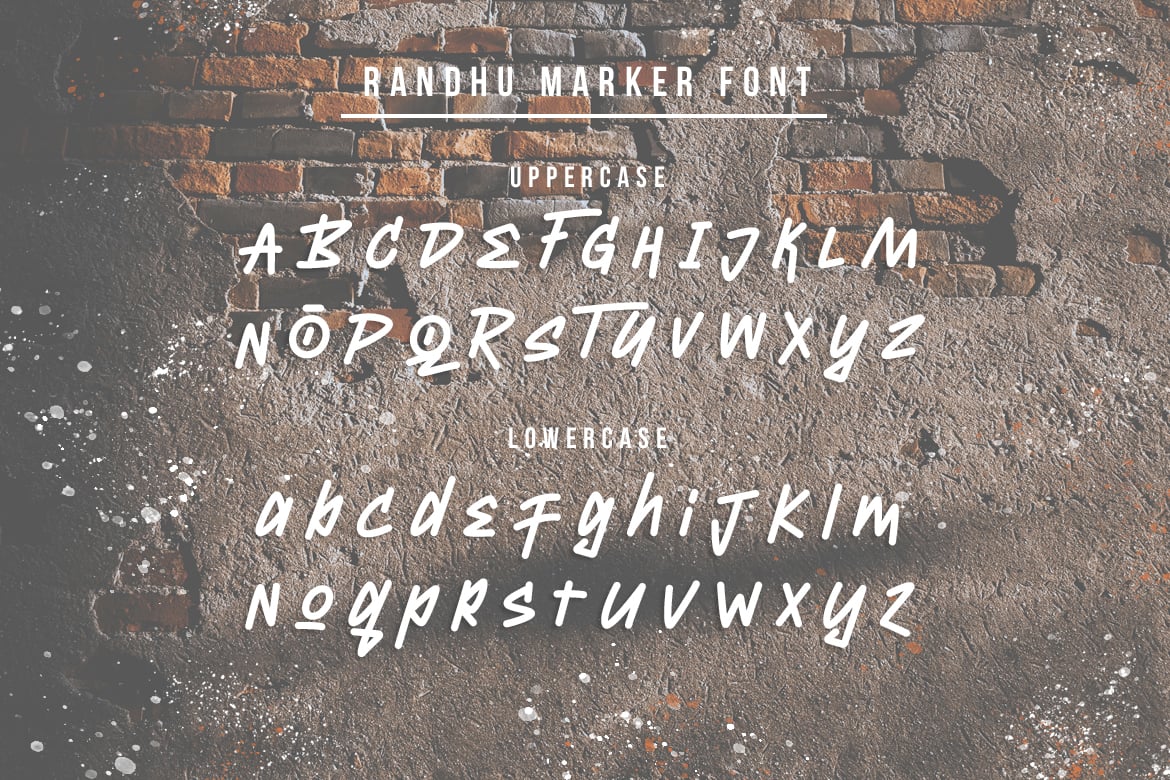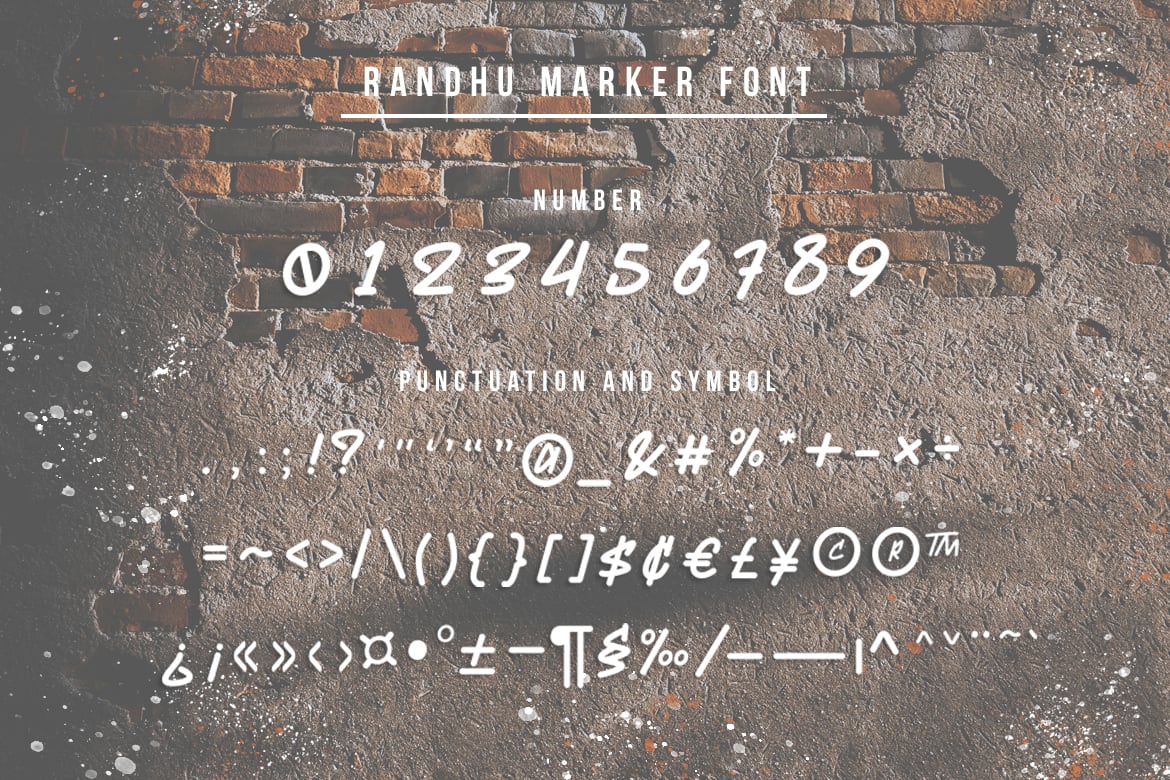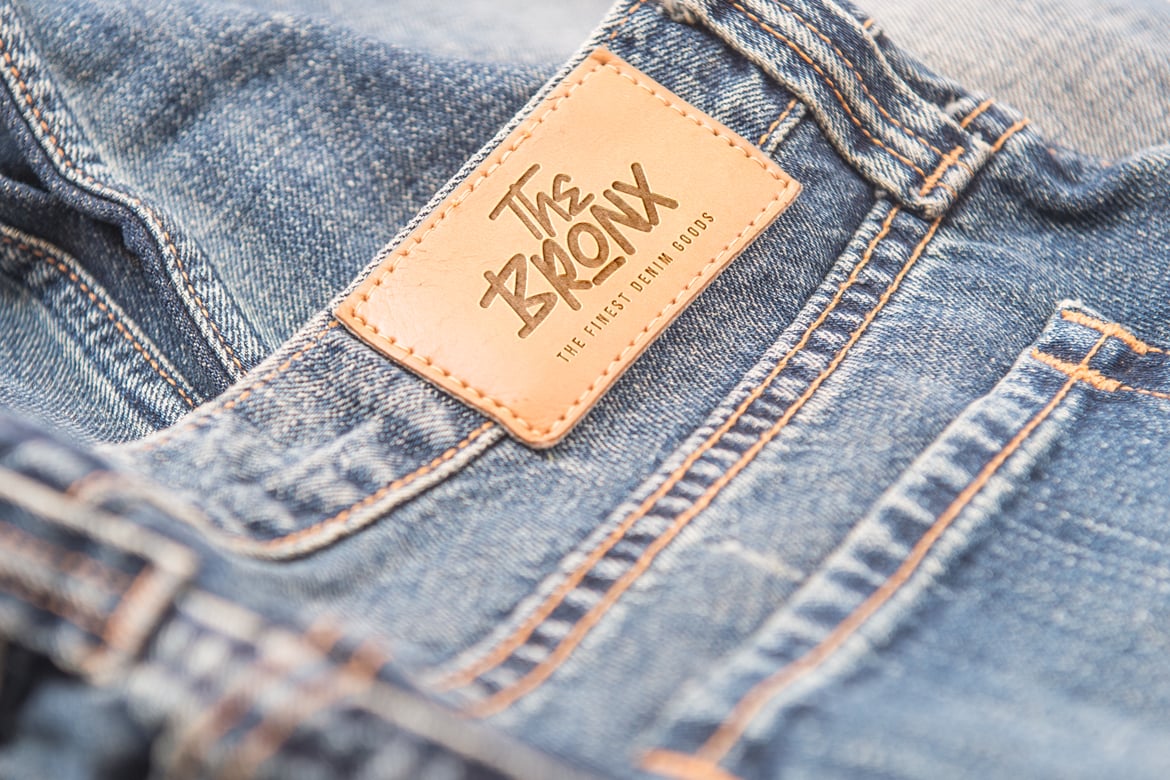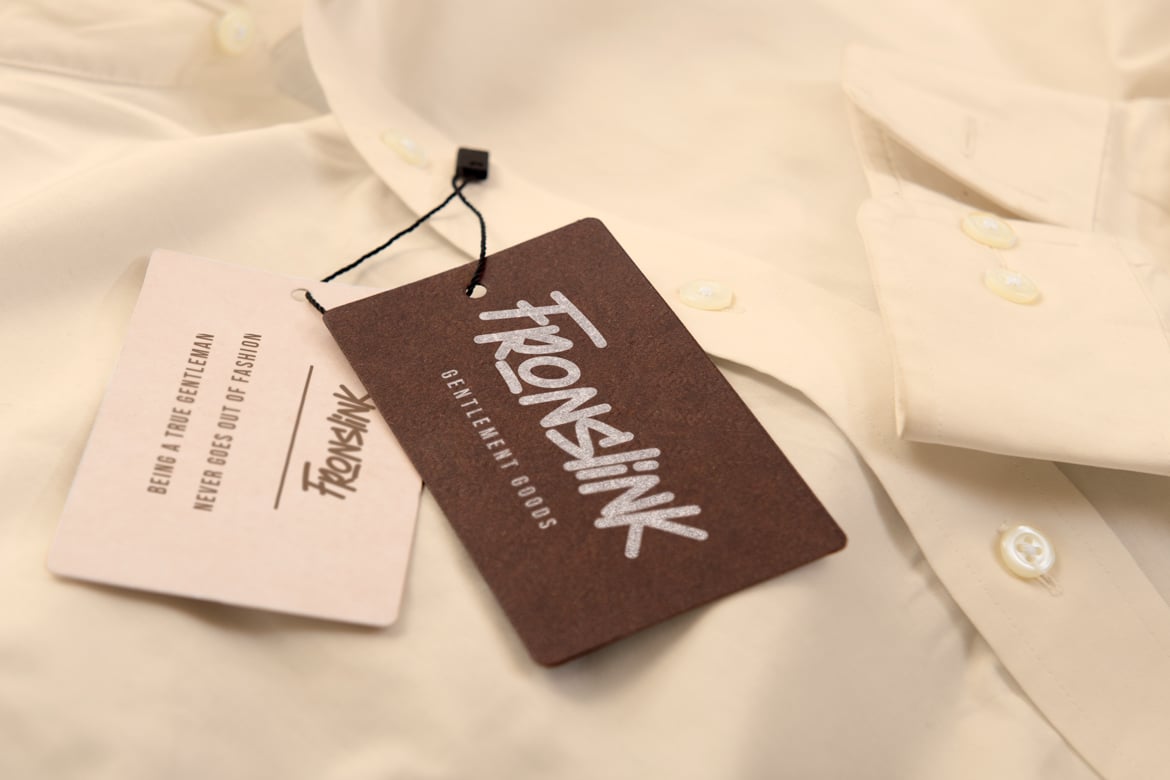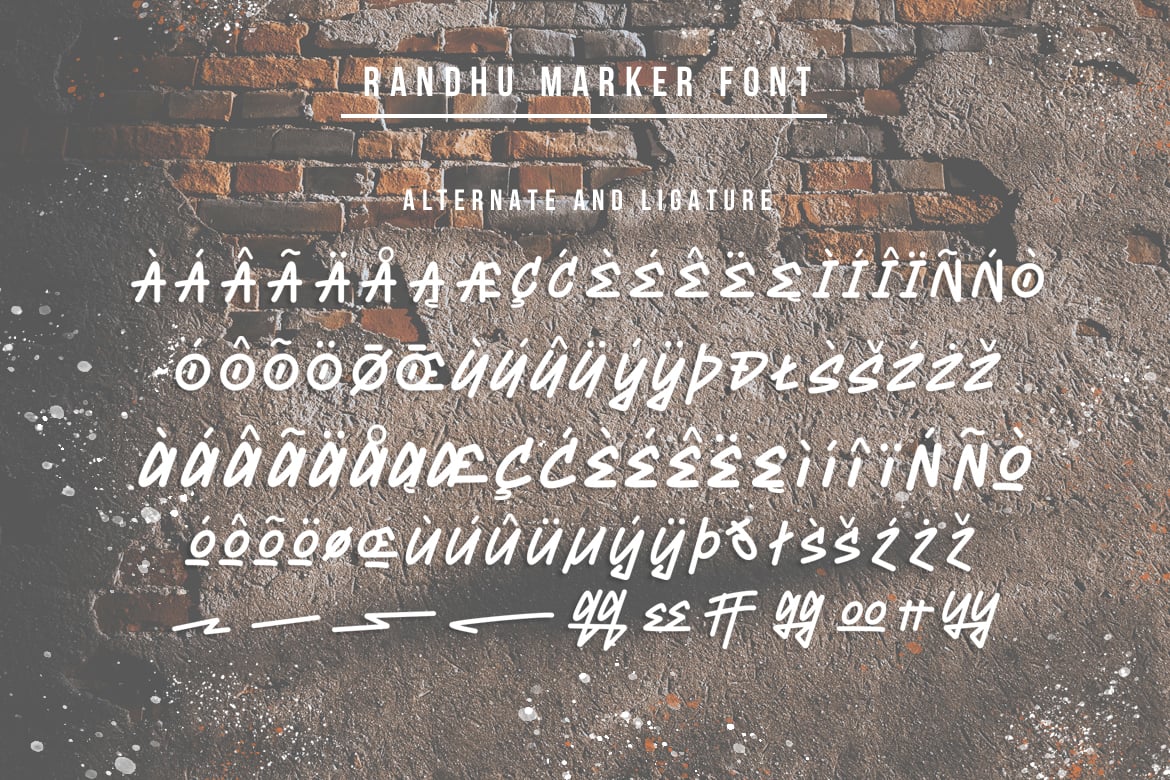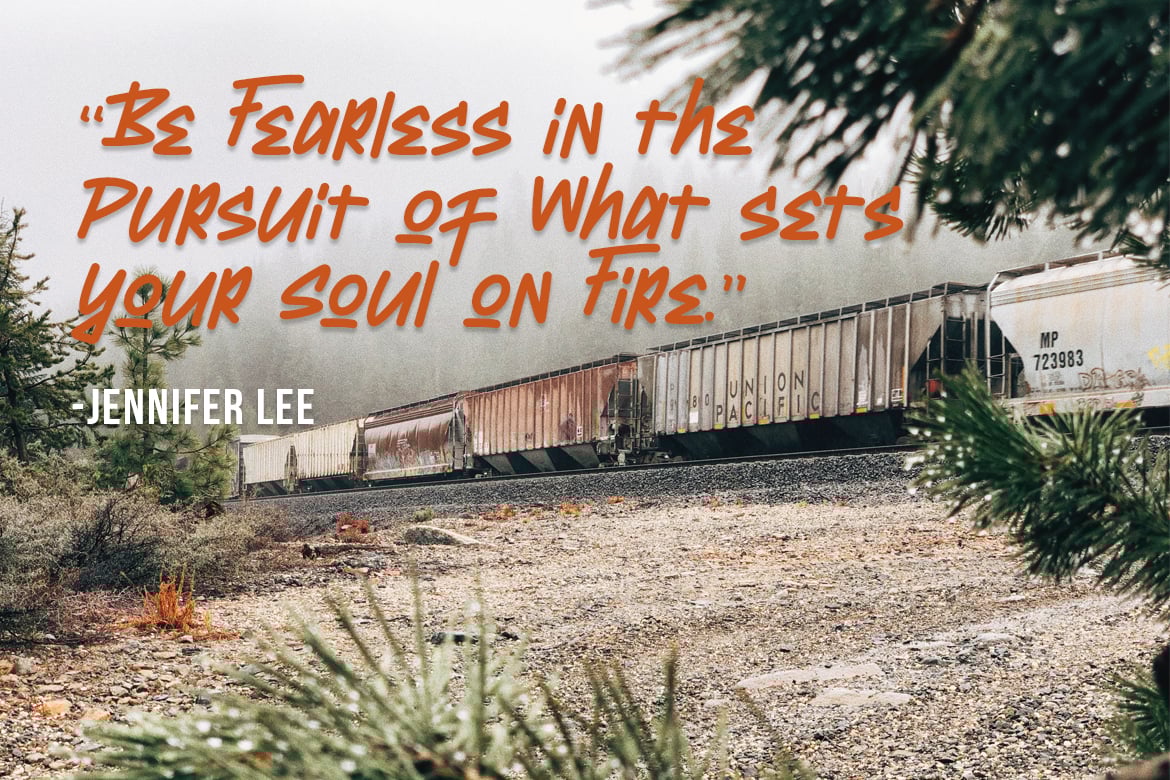
Randhu – Handwritten Marker Font
Randhu is a Handwritten Marker Font, perfectly suitable for creating quotes, Fashion, Adventure, Street art designs such as logos, quote, magazines, and more.